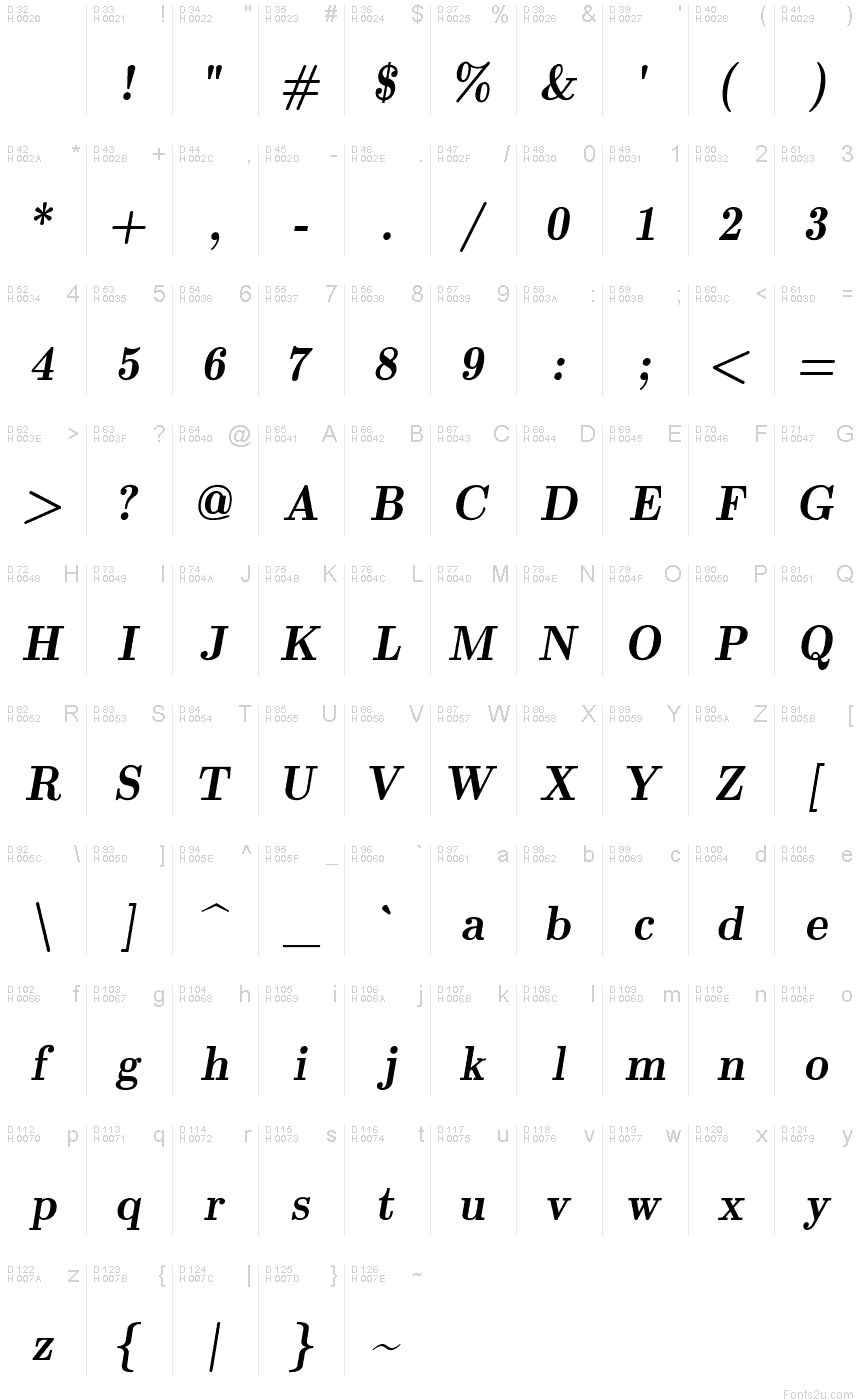
LMRomanDemi10-Oblique by B. Jackowski and J. M. Nowacki of the TeX users groups is a free oblique serif with the familiar, assured structure of a traditional European book face. Its strong slant keeps the formal shapes lively.
A literary publisher or heritage-minded brand could use it for book cover lines and product packaging, lending a scholarly and established voice. The firm vertical strokes, fine hairlines, and crisply bracketed serifs also suit magazine features and formal cultural event programs with a serious editorial manner. Its classical proportions make it particularly apt for history, literature, classical studies, and museum publishing.